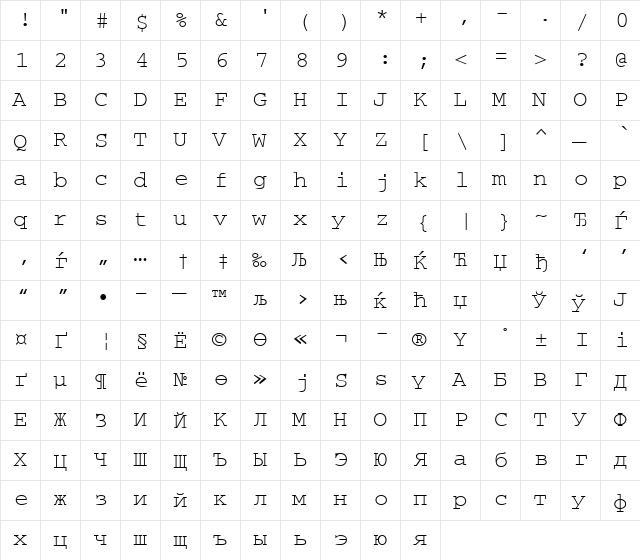
CrrCTT Regular
Design Context for CrrCTT Typeface
CrrCTT offers clean, dependable letterforms without strong stylistic allegiance, making it a practical choice for designers who need flexibility.